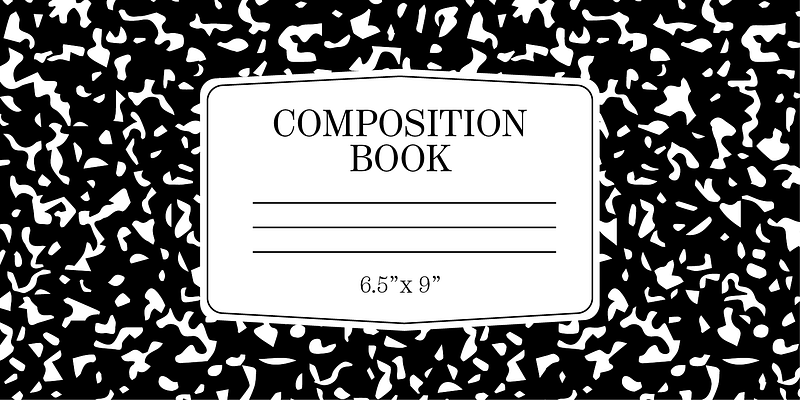
Scotch Deck Font Free Download
Scotch Deck Font Free Download is a bold and modern serif typeface that combines clean lines with a touch of vintage flair. With its sharp serifs, strong contrast, and geometric design, this font is perfect for making a statement in branding, headlines, posters, logos, and editorial design that demands a strong, authoritative look.
The Scotch Deck Font is versatile and works great for both display text and smaller paragraphs. It integrates well with design tools like Adobe Illustrator, Photoshop, Figma, and Canva, making it a great option for both digital and print projects.